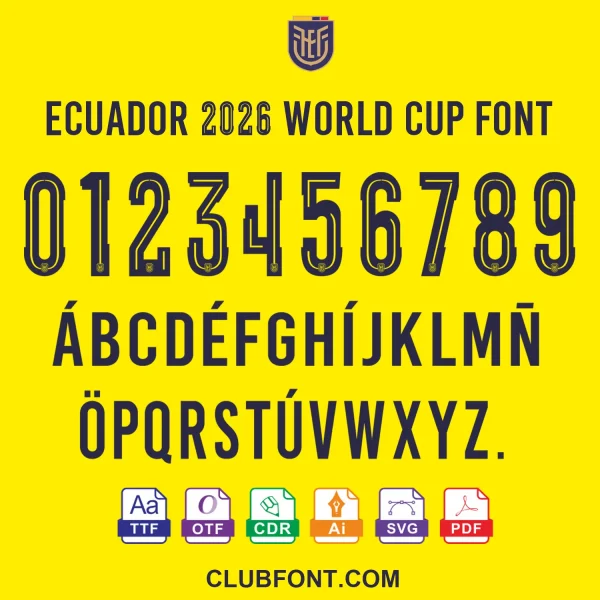
Ecuador 2026 World Cup Official Font Package
Ecuador 2026 FIFA World Cup Typography Kit
Elevate your fan experience with the official Ecuador 2026 World Cup Font. This premium digital package is meticulously recreated to match the exact typography used on the official FIFA World Cup 2026 match kits and merchandise.
• Complete Set: Uppercase letters, numbers (0-9), and punctuation marks.
Perfect for Designers & Fans